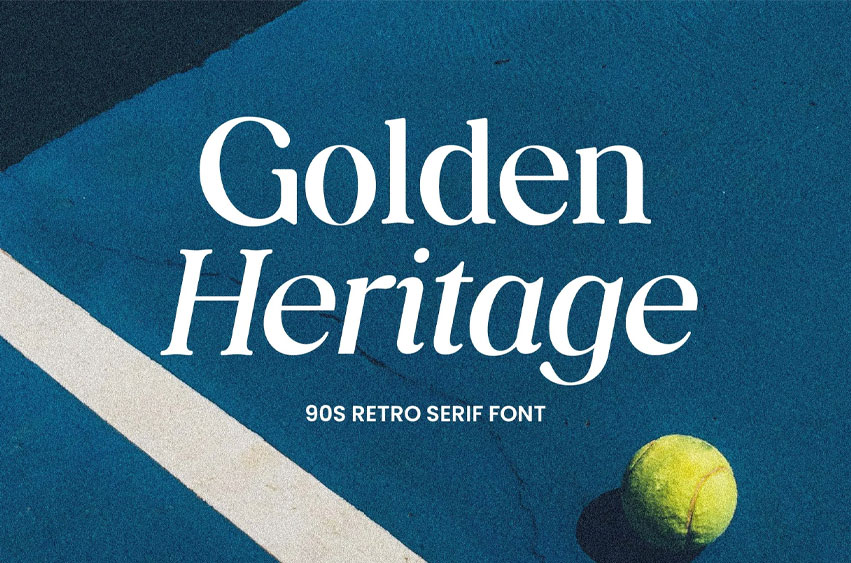
Golden Heritage Font Heritage Retro Serif Font that feels beautiful, classy, elegant, and modern. This font is perfectly suited for a wide variety of projects, such as signatures, stationery, logos, wedding, typography quotes, magazine or book covers, website headers, branding, packaging design, and more.
Also, fashion-related branding or editorial design displays both masculine and feminine qualities.